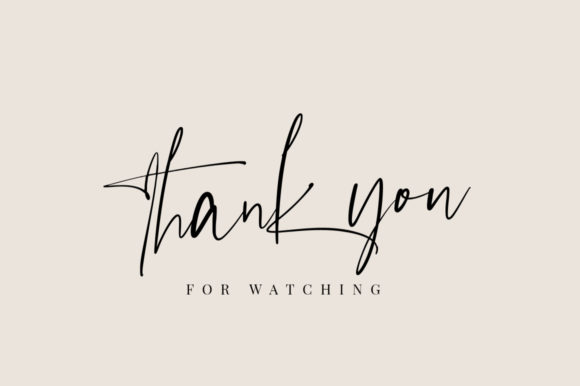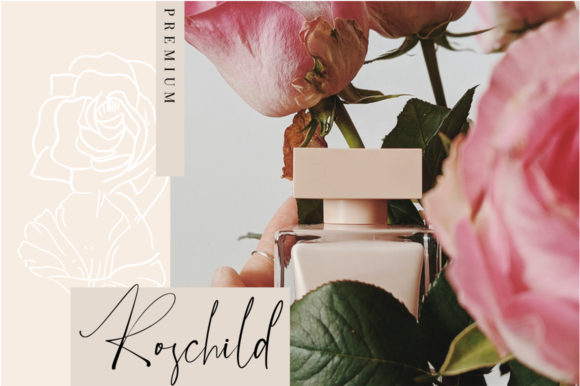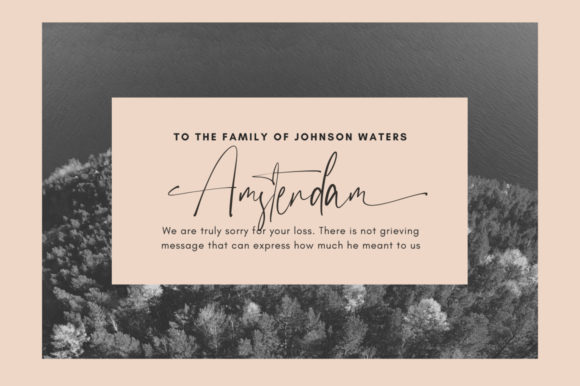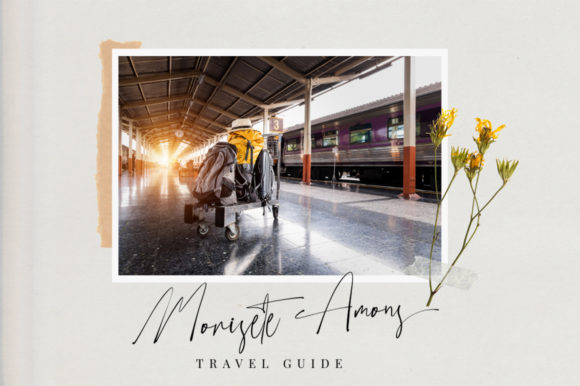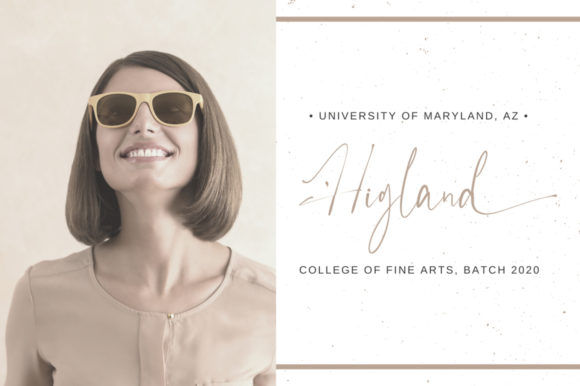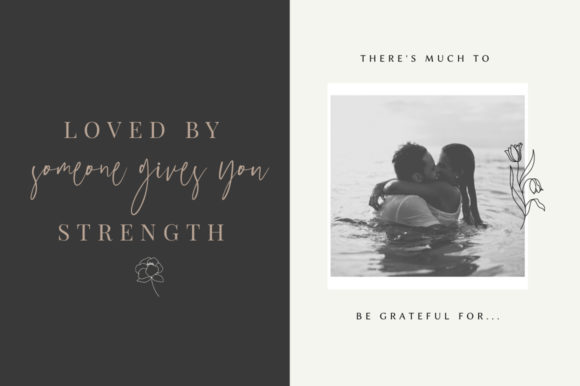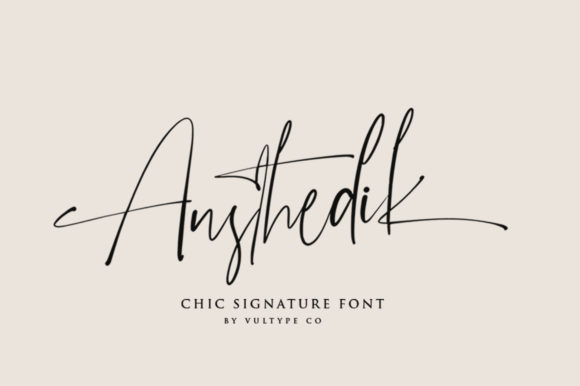
Austhedik Font: Elevate Your Design with Elegance and Sophistication
In the world of typography, a font can make or break a design. It’s the perfect blend of style, elegance, and personality that can elevate your project from ordinary to extraordinary. If you’re a designer, craftsperson, or simply someone who appreciates the art of beautiful typography, then you’re in for a treat. Introducing Austhedik, a stunning handwritten font that’s ready to impress your audience and make your branding shine.
The Beauty of Austhedik
Austhedik is more than just a font – it’s an experience. With its elegant and stylish handwritten design, this font is perfect for anyone looking to add a touch of sophistication to their projects. Whether you’re working on a logo, advertisement, packaging, or even your website or social media branding, Austhedik is the perfect choice. Its beautiful, flowing script is sure to capture the attention of your audience and leave a lasting impression.
Endless Possibilities
One of the best things about Austhedik is its versatility. This font is perfect for a wide range of applications, including:
- Headings: Add a touch of elegance to your headings and titles with Austhedik’s beautiful script.
- Logos: Create a lasting impression with a custom logo designed with Austhedik.
- Ads: Stand out from the crowd with eye-catching advertisements that feature Austhedik’s stylish design.
- Printed Quotes: Add a touch of sophistication to your printed quotes and inspirational messages.
- Packaging: Elevate your product packaging with Austhedik’s elegant design.
- Web and Social Media: Use Austhedik to create a consistent brand image across your website and social media platforms.
PUA Encoded for Easy Use
Austhedik is PUA (Private Use Area) encoded, which means that you can access all of the glyphs and swashes with ease. This feature makes it easy to customize your text and add your own personal touch to your designs. With Austhedik, you can:
- Access alternate characters: Switch between different character designs to create a unique look.
- Use swashes: Add a touch of elegance to your text with beautiful swashes.
- Customize your text: Experiment with different glyphs and characters to create a look that’s all your own.
Why Choose Austhedik?
With so many fonts to choose from, why should you choose Austhedik? Here are just a few reasons:
- Elegant design: Austhedik’s stylish handwritten design is sure to impress your audience.
- Versatility: Use Austhedik for a wide range of applications, from headings and logos to packaging and web design.
- Easy to use: Austhedik’s PUA encoding makes it easy to access all of the glyphs and swashes.
- High-quality: Austhedik is a high-quality font that’s designed to deliver exceptional results.
| Font Name | Austhedik Font |
| Author | vultype |
- Elegant and stylish handwritten font
- Perfect for headings, logos, ads, printed quotes, packaging, and web design
- High-quality font designed for exceptional results